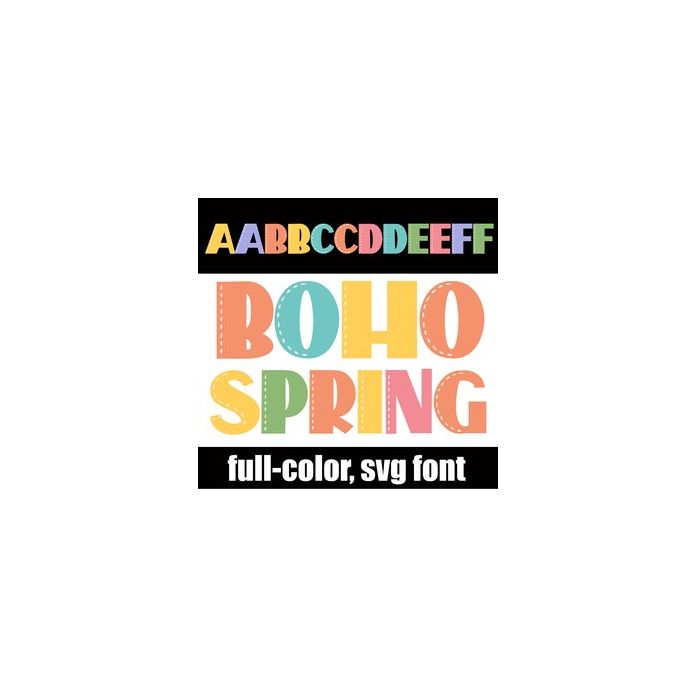
This full-color font features a spring color palette in a postage stamp design. There is an alt case w/ additional colors you can access through your system or Silhouette's glyph map.